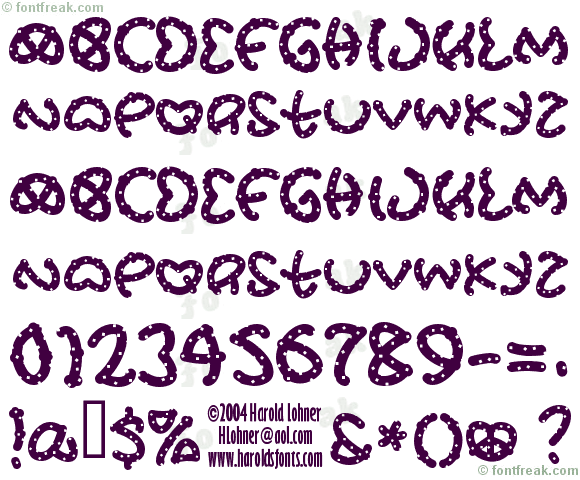
PretzSalted
PretzUnsalted
About PretzSalted
PretzSalted is a playful, decorative font designed by Harold Lohner. This unique typeface, categorized as a display font, is characterized by its whimsical, irregular letterforms that resemble pretzel shapes, complete with distinctive dots that mimic salt grains. The stroke weight varies throughout the characters, creating an engaging visual rhythm that captivates the viewer. The spacing between letters is intentional, allowing for easy readability while maintaining a fun, casual vibe.
This font is ideal for a variety of creative projects. It shines in contexts like children's party invitations, where its playful nature can evoke joy and excitement. Additionally, PretzSalted can be effectively utilized in food-related branding, such as restaurant menus or food packaging, particularly for establishments specializing in snacks or baked goods. Movie posters and promotional materials for family-friendly films can also benefit from its lively aesthetic, helping to convey a sense of fun and approachability. Graphic designers and small business owners looking to create a memorable brand identity will find PretzSalted particularly appealing.
What sets PretzSalted apart is its ability to combine functionality with a distinct playful character, making it a fantastic choice for any creative endeavor. Whether you're designing a festive flyer or a modern brand logo, this font offers a unique twist that will make your designs stand out. For those interested in adding this delightful typeface to their toolkit, the PretzSalted font free download is readily available, inviting creativity and fun into every project.